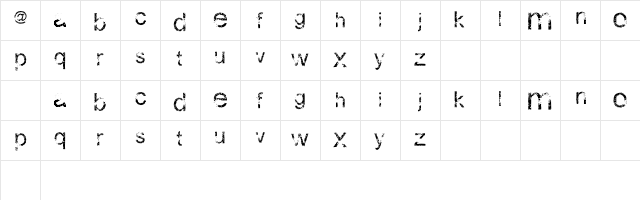
Wacky Arial Regular
Design Context for Wacky Arial Typeface
Wacky Arial is a composed and adaptable typeface that performs quietly and consistently across a wide range of design contexts.